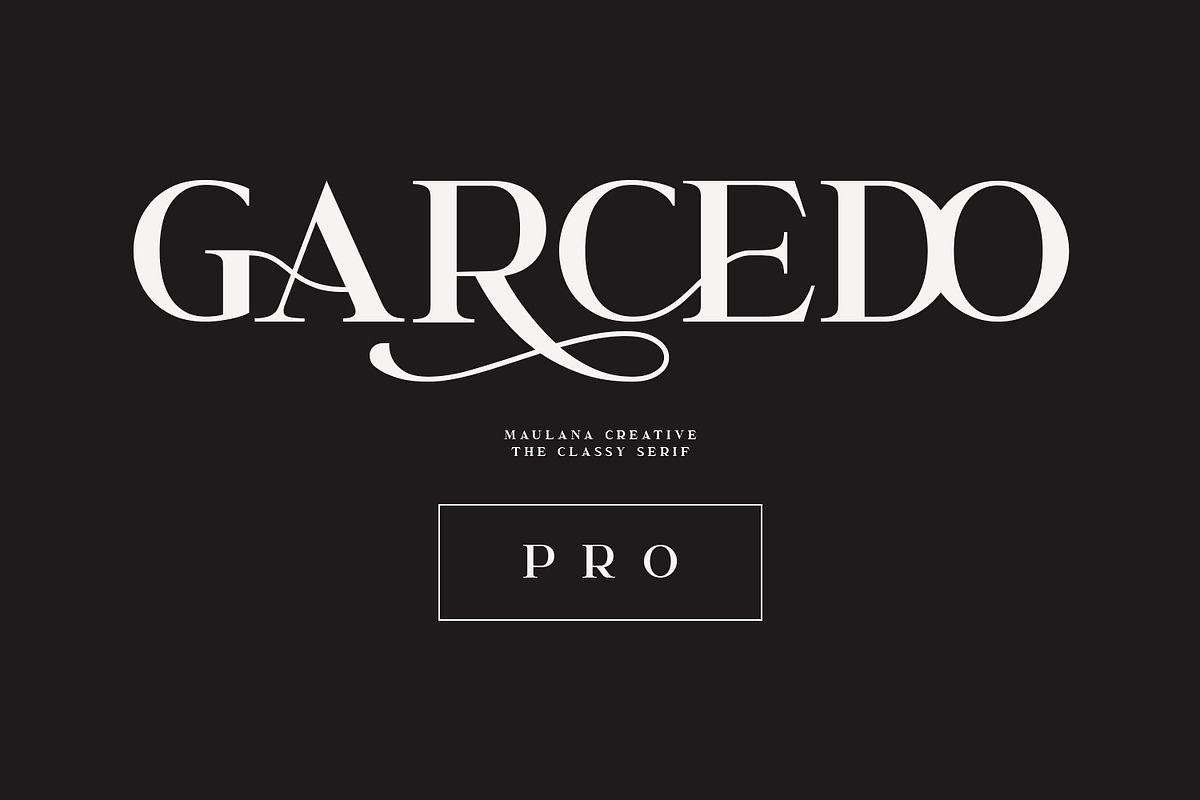
Garcedo Serif Font Triple Pro Free Download is a premium serif typeface trio designed for elegance, flexibility, and high-end appeal. Featuring three professional-grade styles—regular, italic, and bold—Garcedo is perfect for branding, editorial layouts, fashion campaigns, product packaging, and sophisticated website headers.
Its classic serif construction is enhanced with modern proportions, delivering strong readability and timeless beauty. Whether you're building a luxury logo or designing a stylish magazine spread, Garcedo offers the balance of form and function that premium design demands.